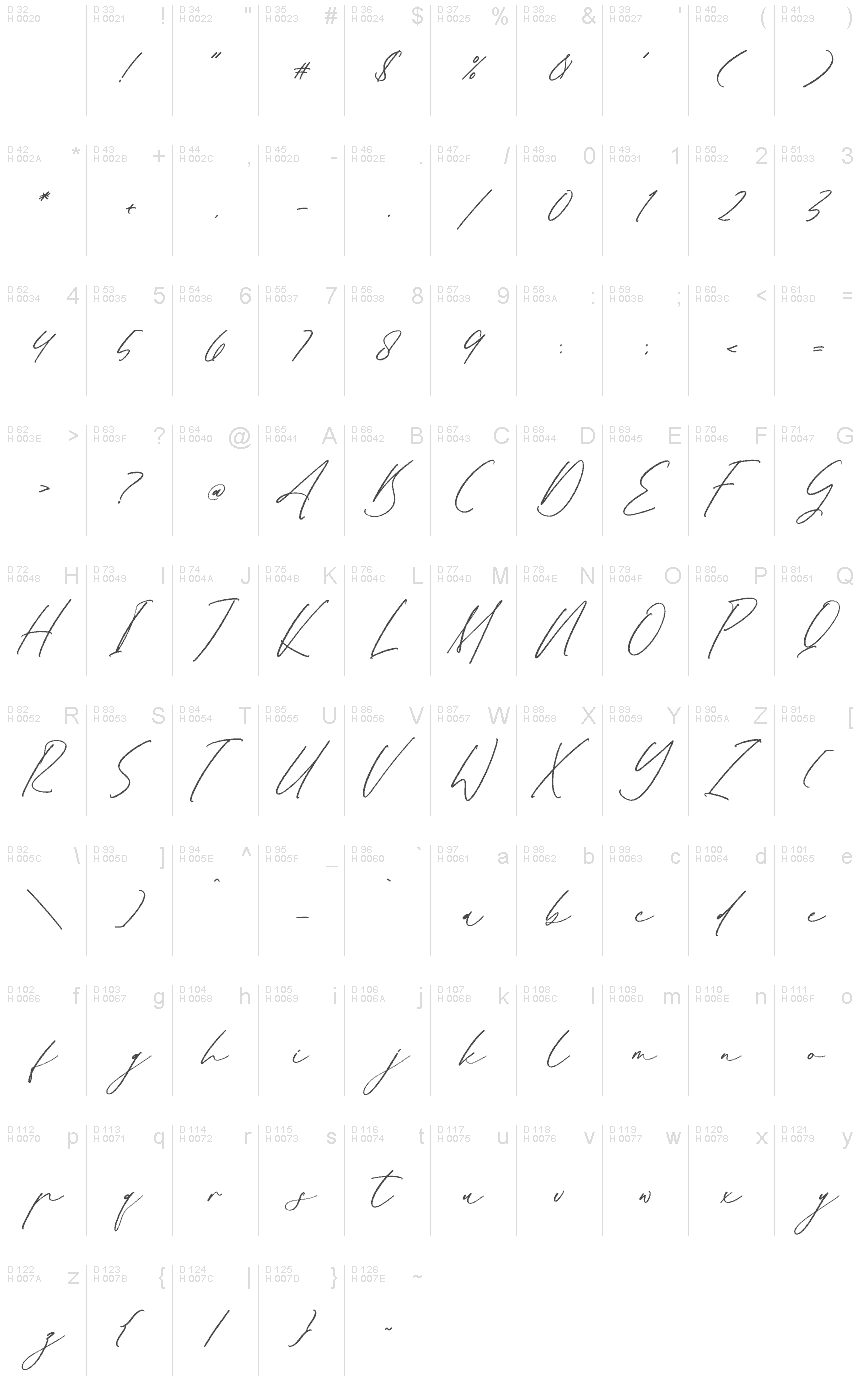
Gatenfield Mondilla
Gatenfield Mondilla font by Storytype Studio is an elegant, flowing, and expressive handwritten font with a modern calligraphy style. Its artistic flair shines through its light and condensed width, making it appear delicate and refined. Inspired by the beauty of nature’s lines and forms, its letters are strikingly soft yet vibrant at the same time.